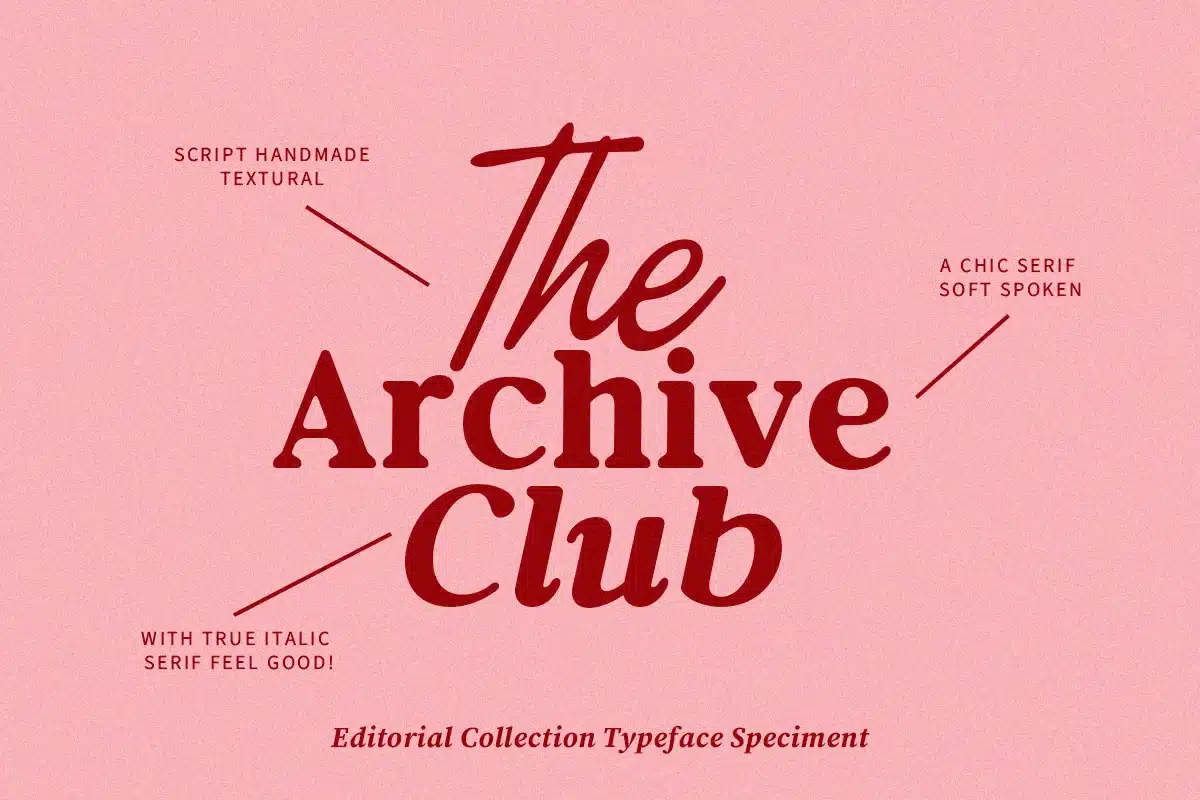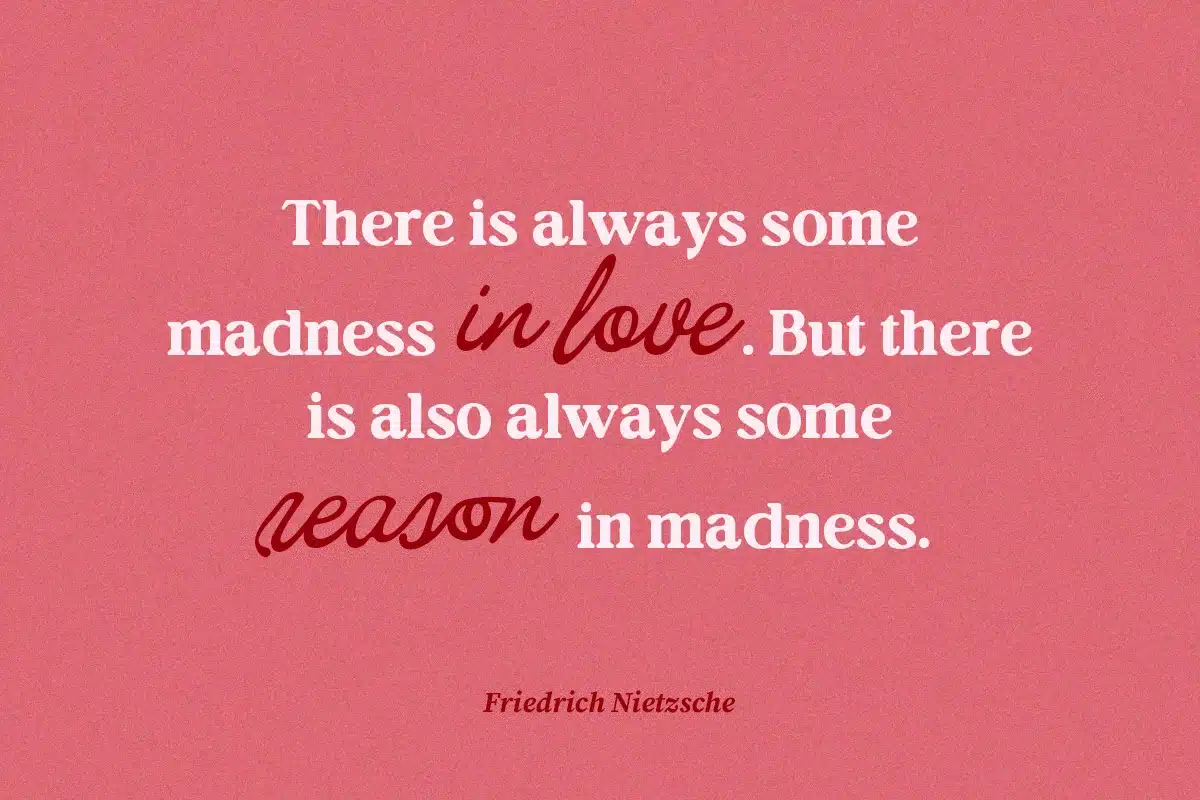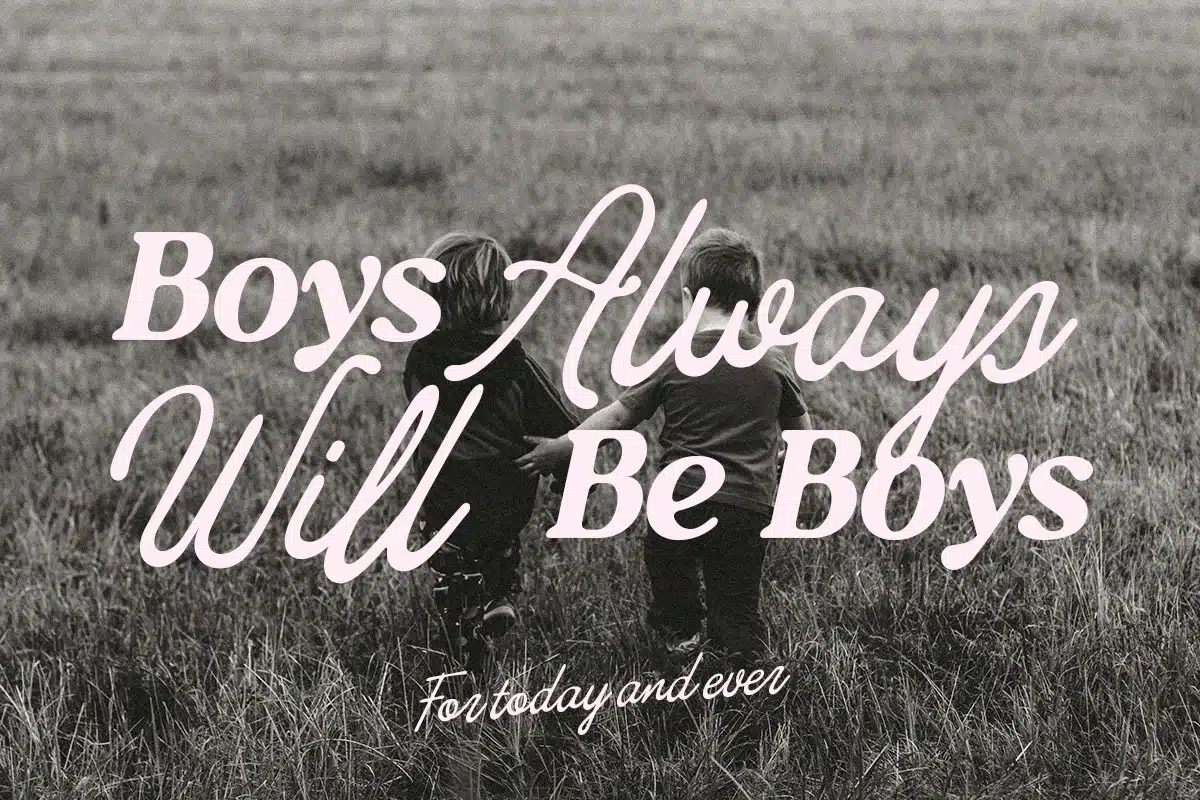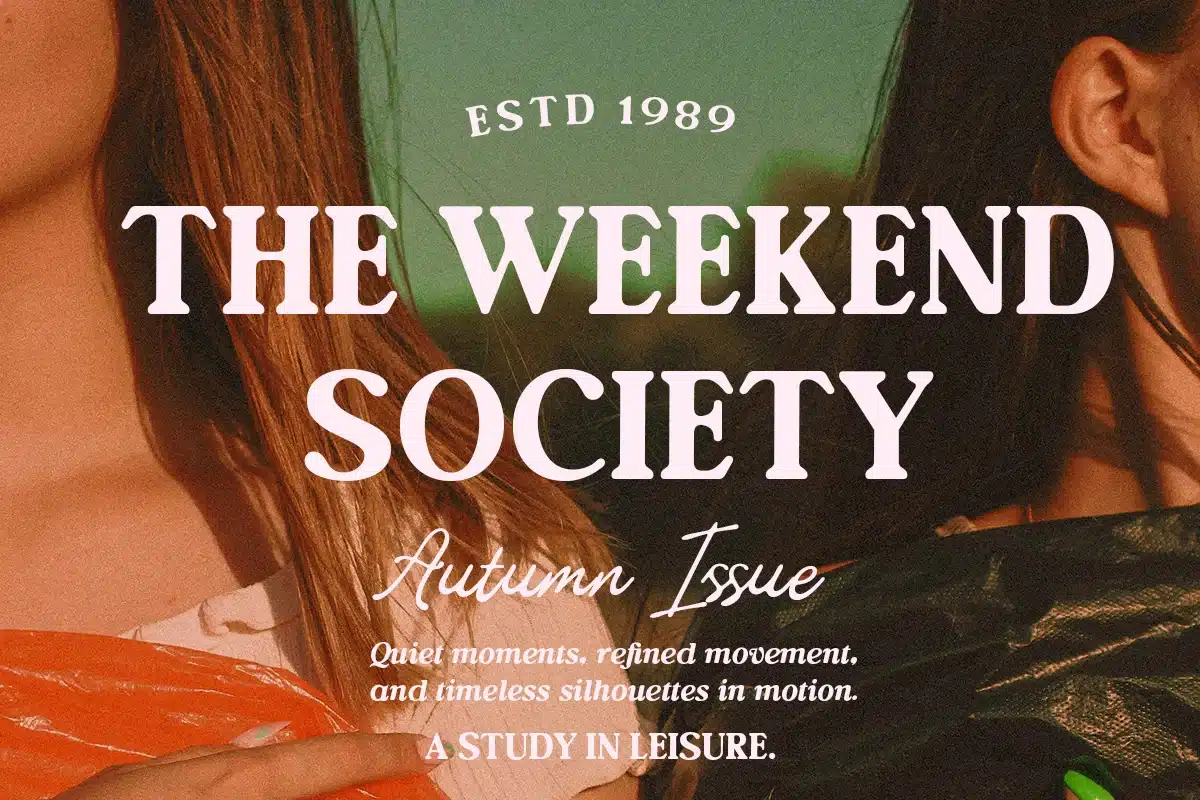
Editorial Collection Font Duo
Editorial Collection t is a handcrafted font duo featuring bold sans Serif and script typefaces. You can use this font for a variety of purposes, especially for designs that require a retro and vintage feel, such as posters, logos, quotes, and branding. The alternates, ligatures, and lines of the script font will enhance the look of your projects. This font duo is also multilingual!